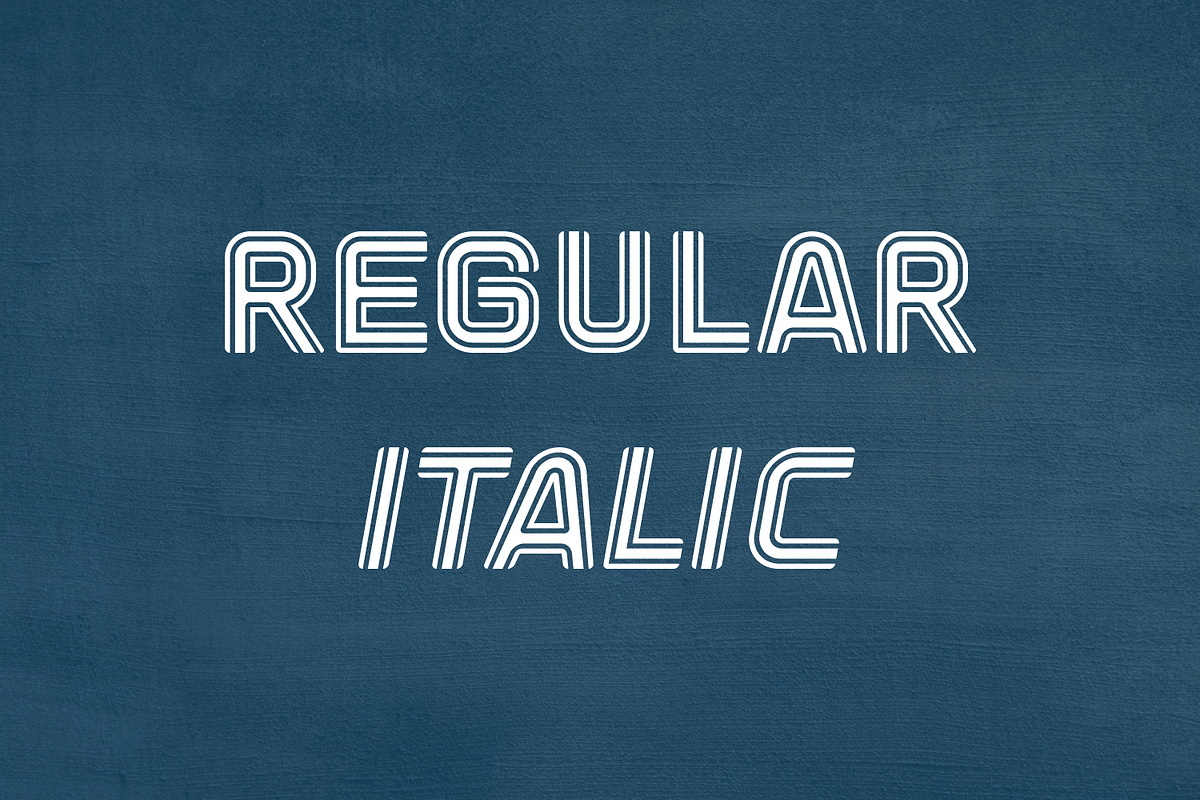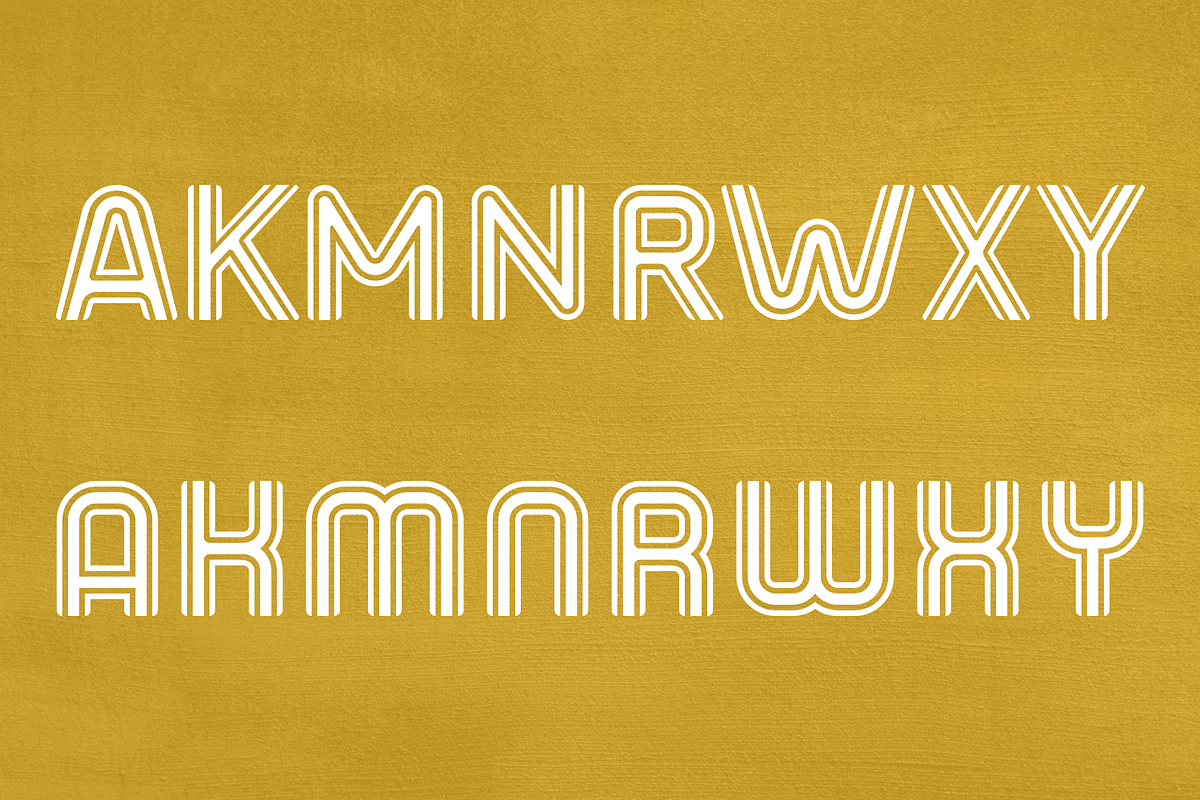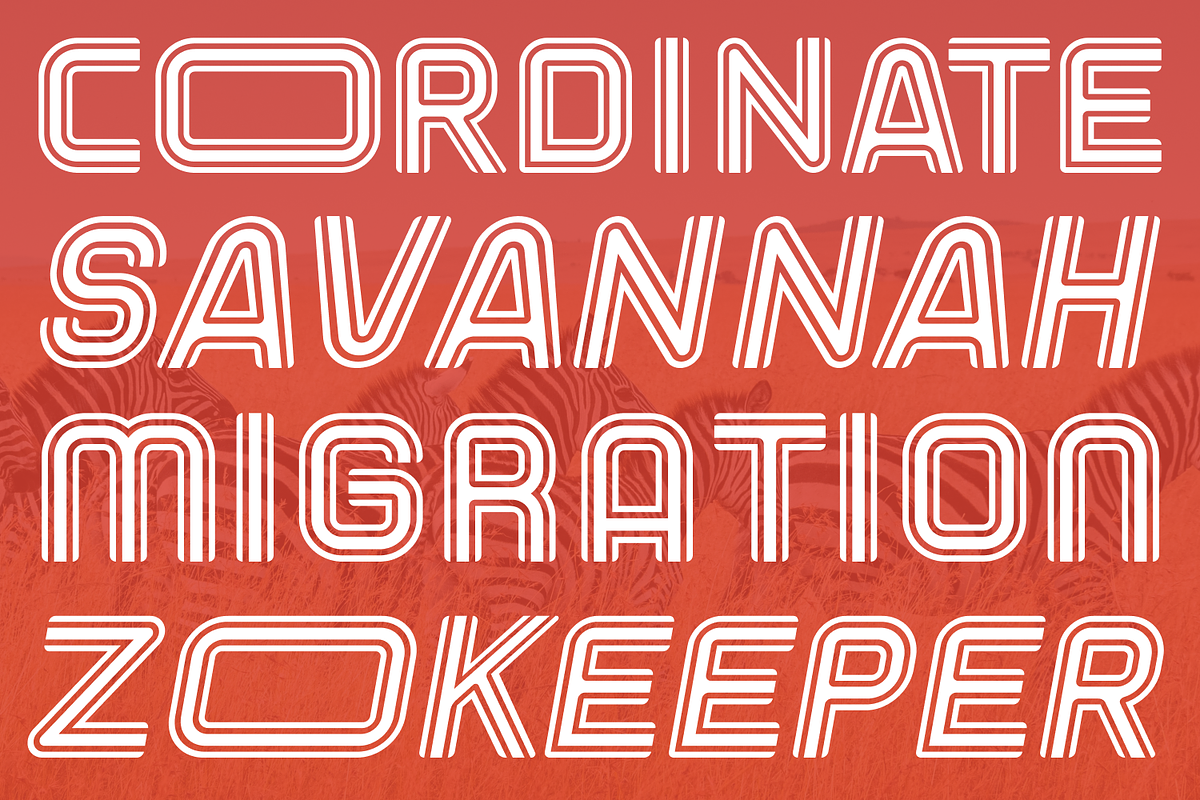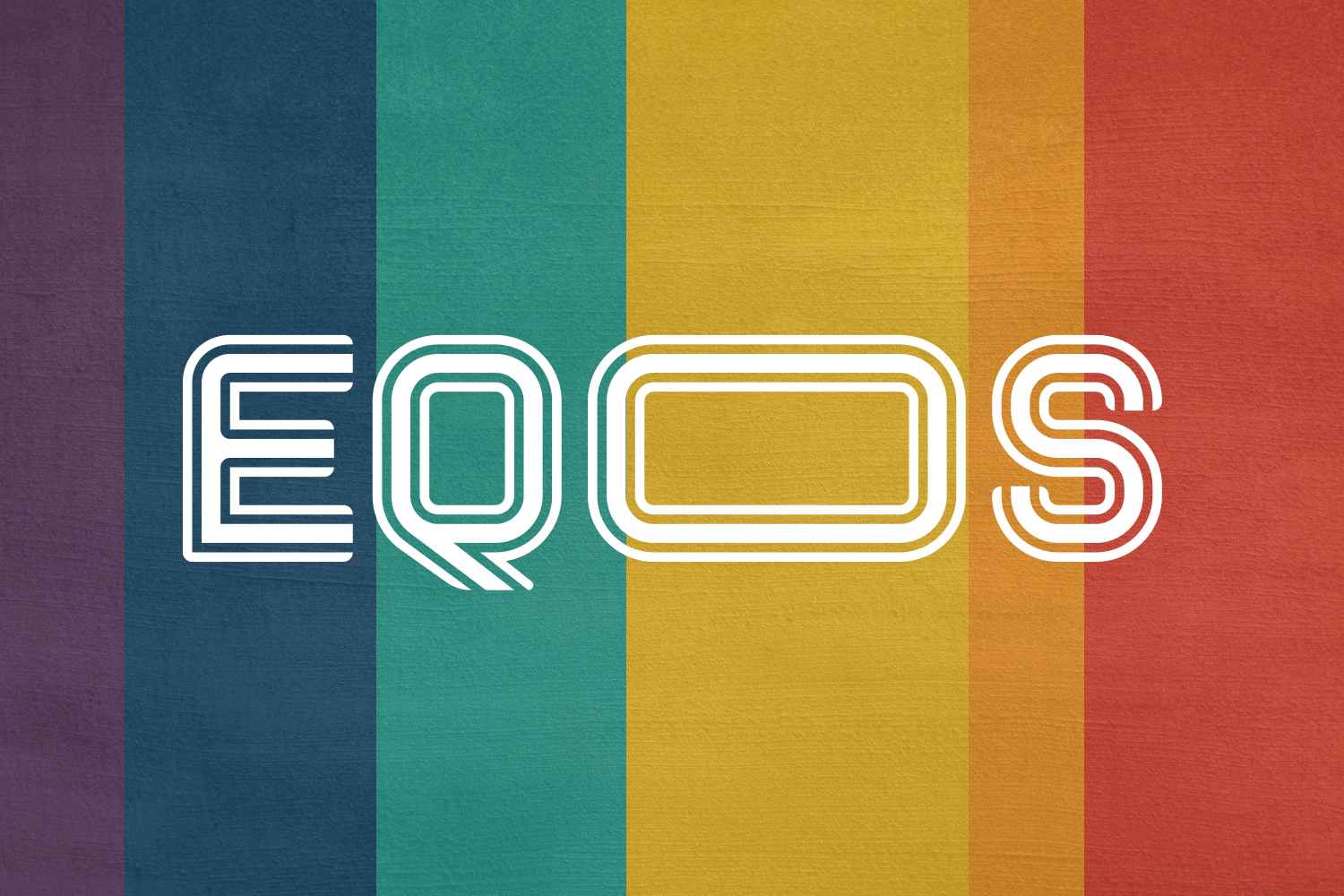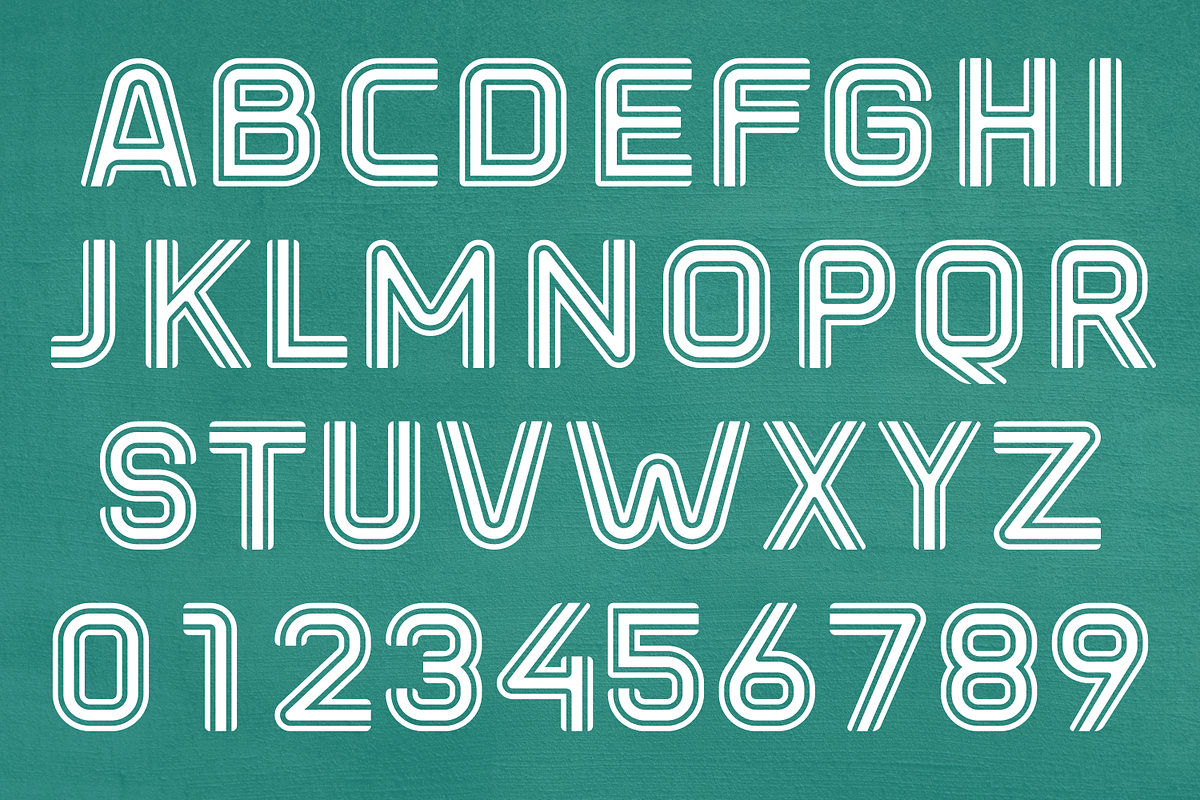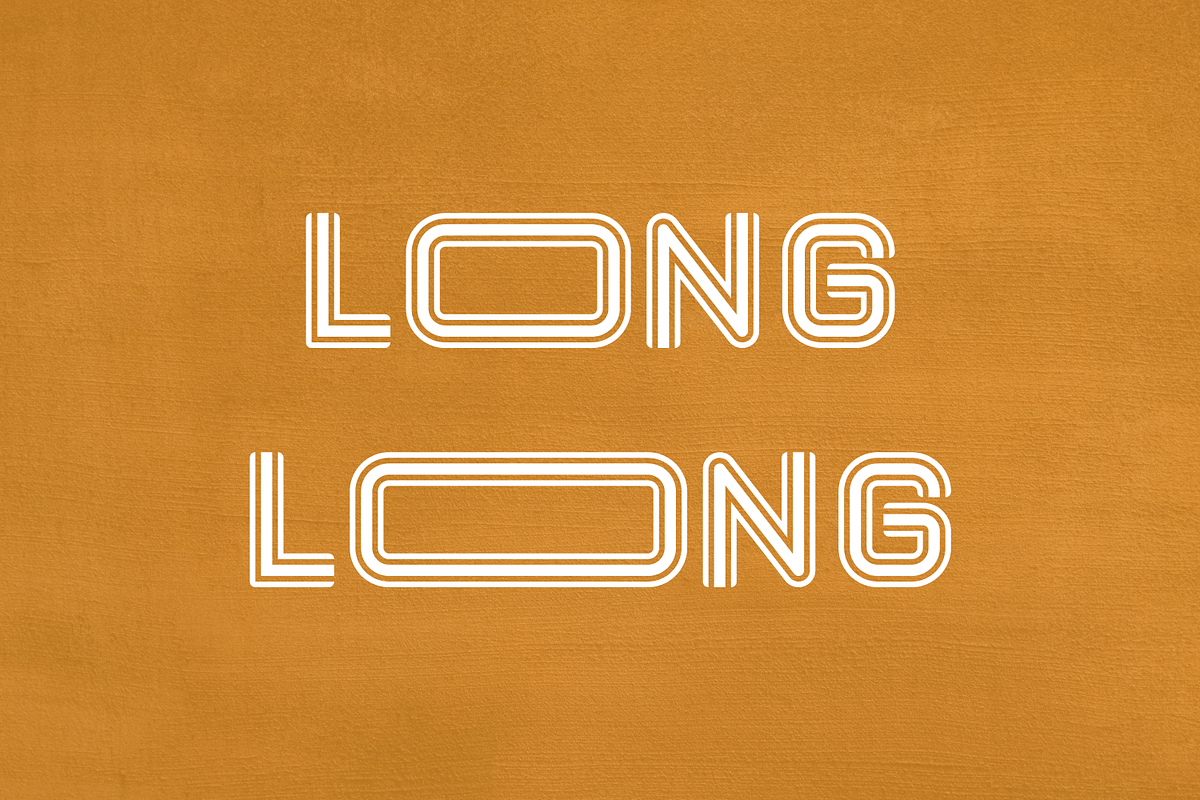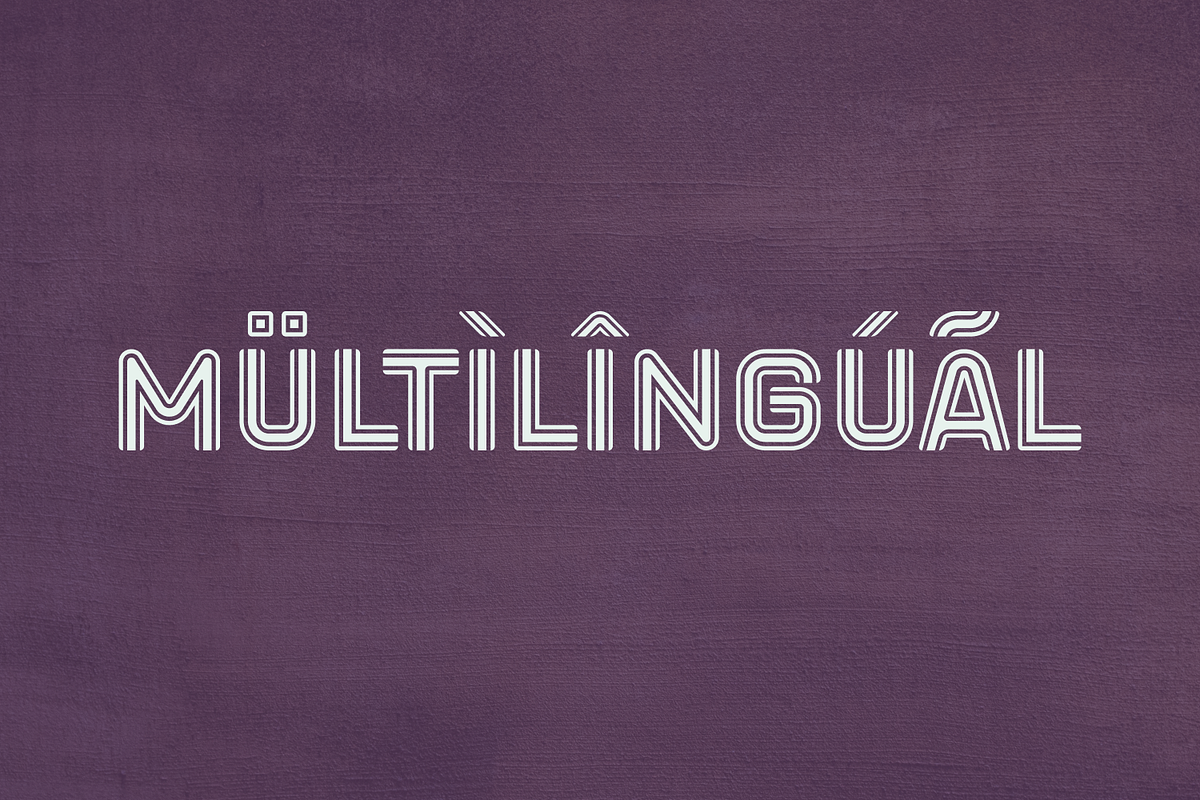
Eqoos Font
Eqoos font captivates with its distinctive striped design, exuding a modern and professional vibe that sets it apart from conventional typefaces. Perfect for logos, brand identities, and promotional materials, Eqoos seamlessly blends robust typography with contemporary elegance. Its unique stripe style adds a touch of sophistication and flair, making it an excellent choice for designers looking to create memorable and impactful visuals.
Whether you’re working on corporate branding, marketing campaigns, or digital interfaces, Eqoos brings a unique and captivating visual appeal to your graphic designs. The font’s bold and trendy elegance ensures that your projects stand out, providing a fresh and dynamic look that resonates with contemporary audiences. Elevate your creative endeavors with Eqoos, and make a bold statement that leaves a lasting impression with every project.